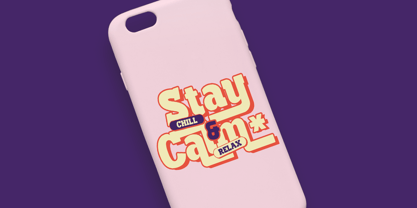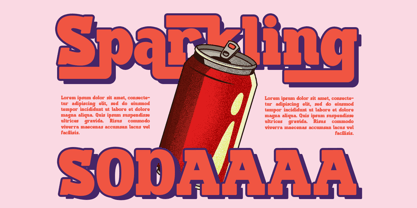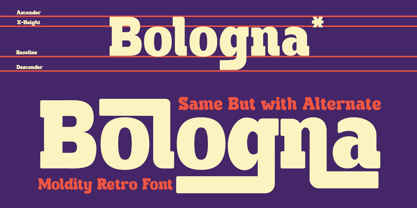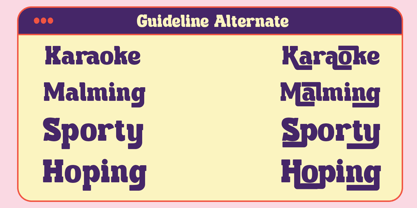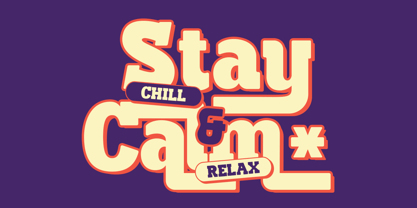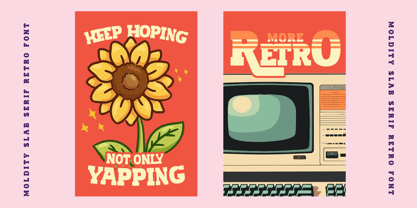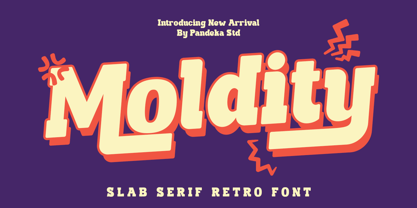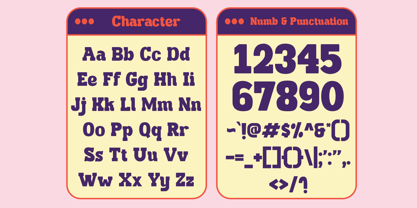
Moldity
The Moldity Font Family was designed by Sagara Nararya and published by Pandeka Studio. Moldity contains 1 styles. More about this family
Meet Moldity – A Retro Slab Serif with Timeless Charm
Another exciting creation from us! Introducing Moldity, a bold retro slab serif font that captures the essence of vintage design. Inspired by the timeless beauty of retro posters, old-school branding, and classic typography, Moldity brings a nostalgic yet fresh vibe to your projects.
Crafted with love and attention to detail, Moldity is perfect for giving your designs a touch of retro elegance. Whether you're working on branding, logos, posters, packaging, or any creative project that needs a bold and vintage flair, Moldity will make your work shine.
• 1 Style: Regular
• Full Character Set: Uppercase, lowercase, numbers, symbols, and punctuation
Bring your projects to life with the nostalgic charm of Moldity! Whether you’re designing a retro-themed brand, creating standout logos, or crafting eye-catching posters, Moldity will help you tell your story with style and personality.